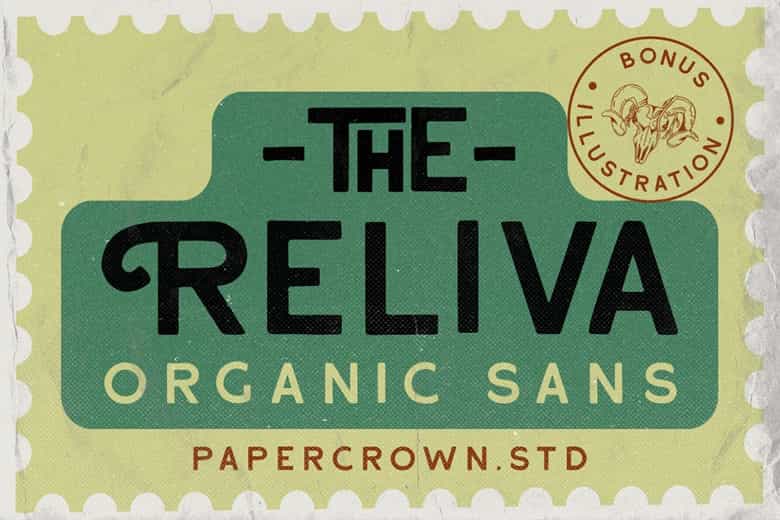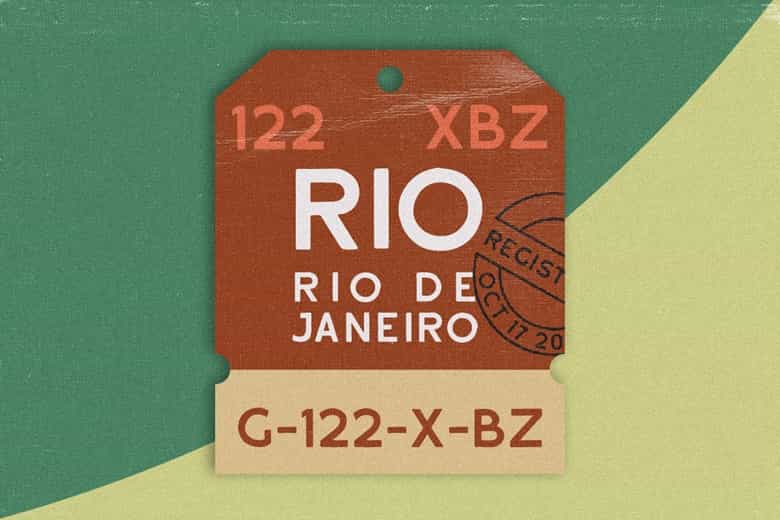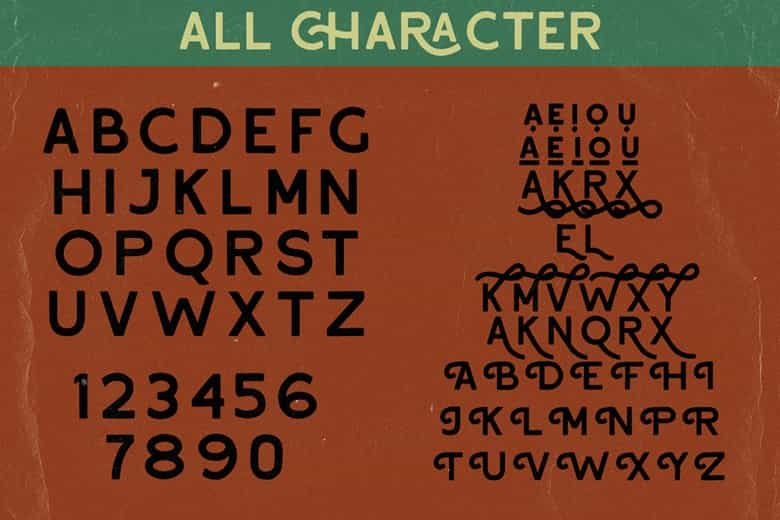
Reliva is a new organic sans serif font. This font has many alternates and ligatures to make this font very special and different. There are also 6 high quality illustration that is included with this font! Reliva is just the perfect font to make logotype, branding, packaging, and quotes.